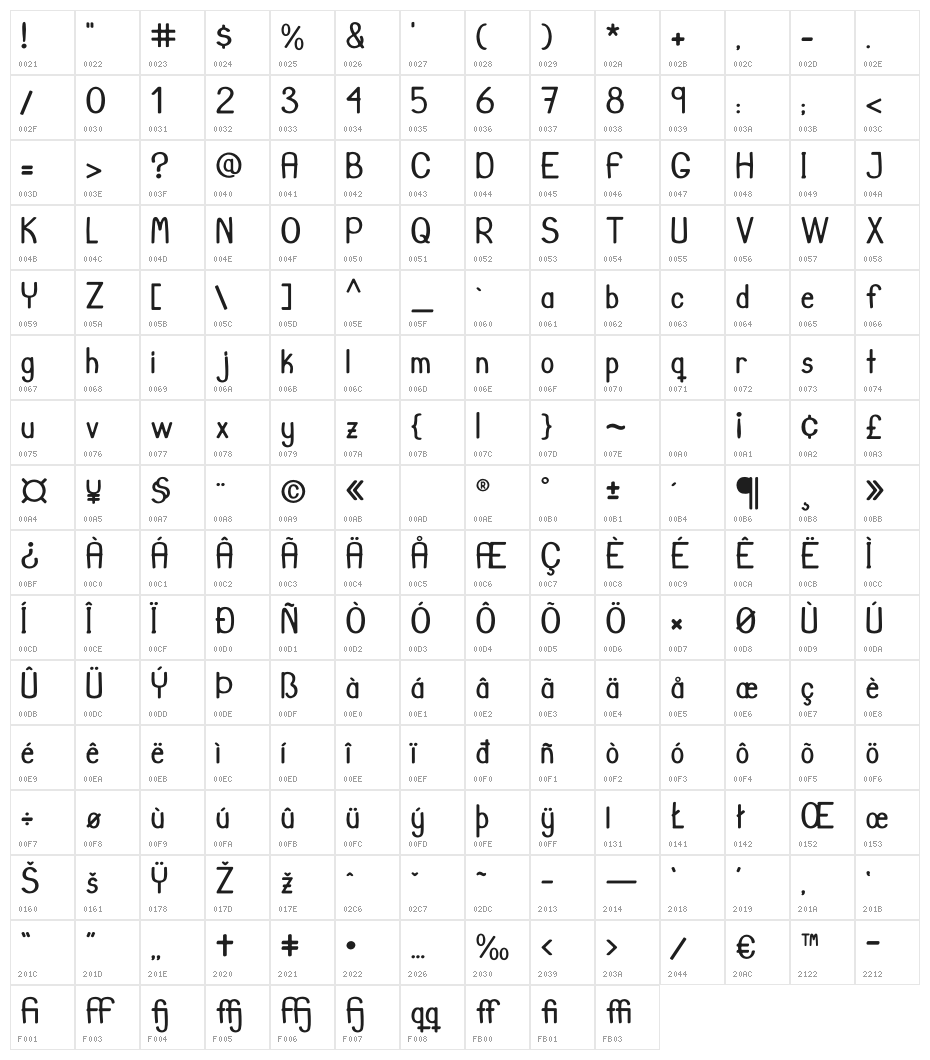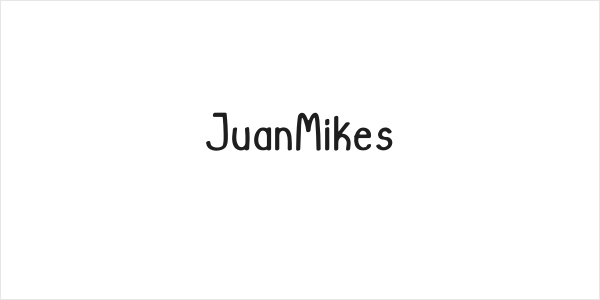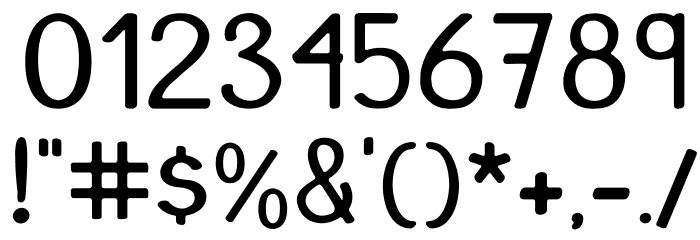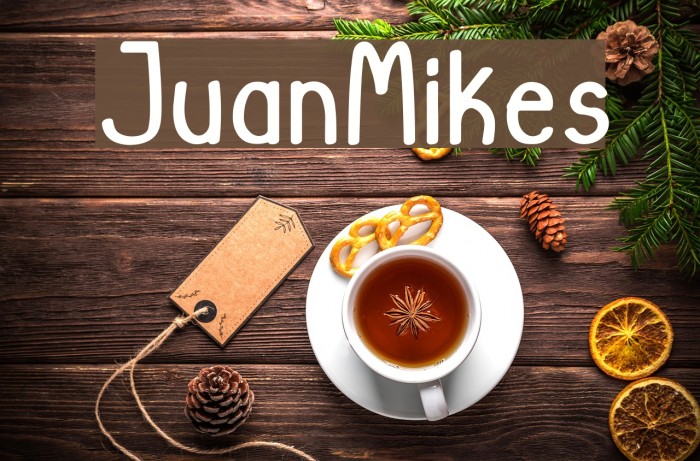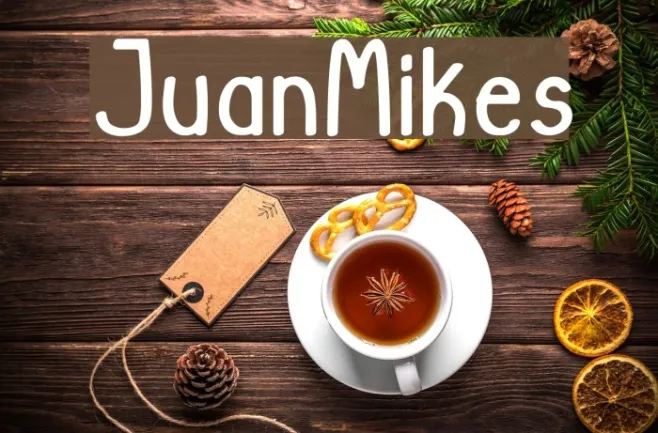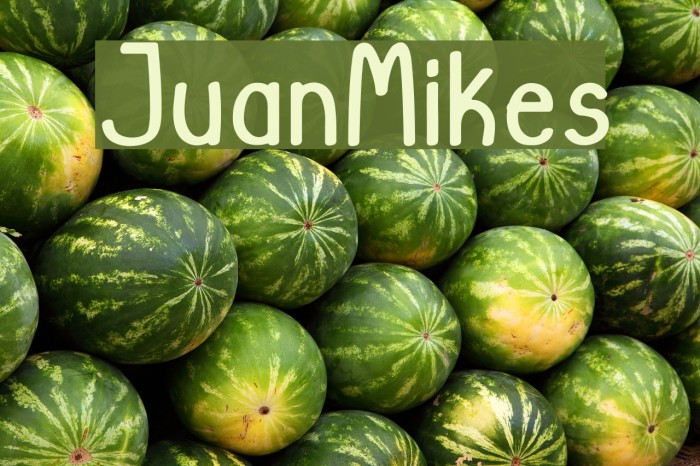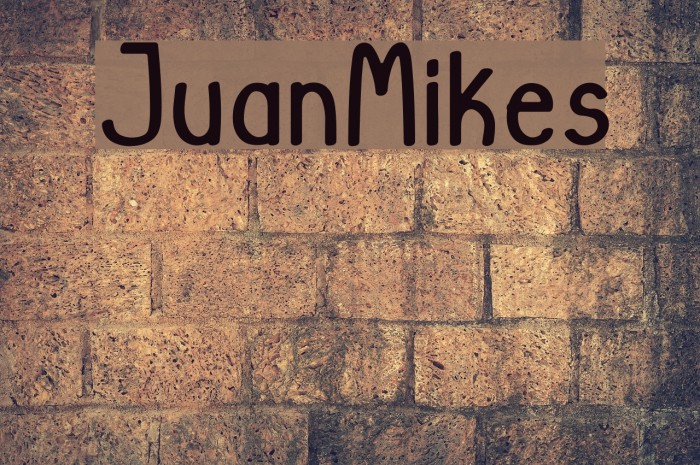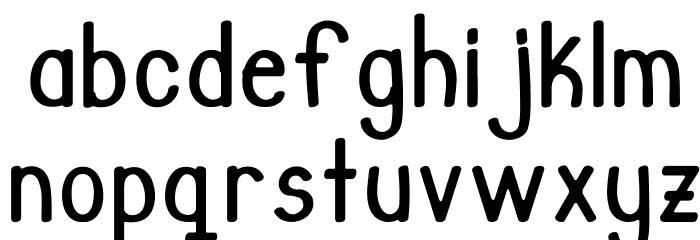
JuanMikes Font
JuanMikes Description
This font features a playful and rounded style, characterized by its smooth curves and friendly appearance. The letters are evenly spaced with a consistent stroke width, giving it a clean and approachable look. The uppercase and lowercase letters maintain a uniform height, while the numerals and special characters complement the overall design with their rounded edges. This font is versatile and can be used in various creative projects, adding a touch of whimsy and warmth.
| Proposed Projects | Ideal for children's books, playful branding, greeting cards, and informal invitations. |